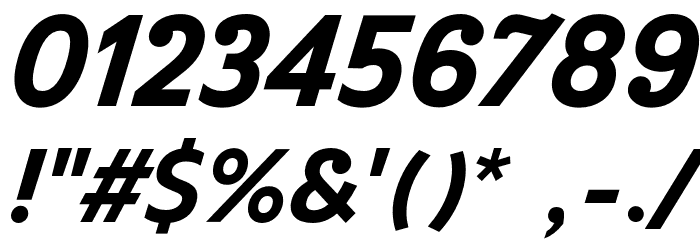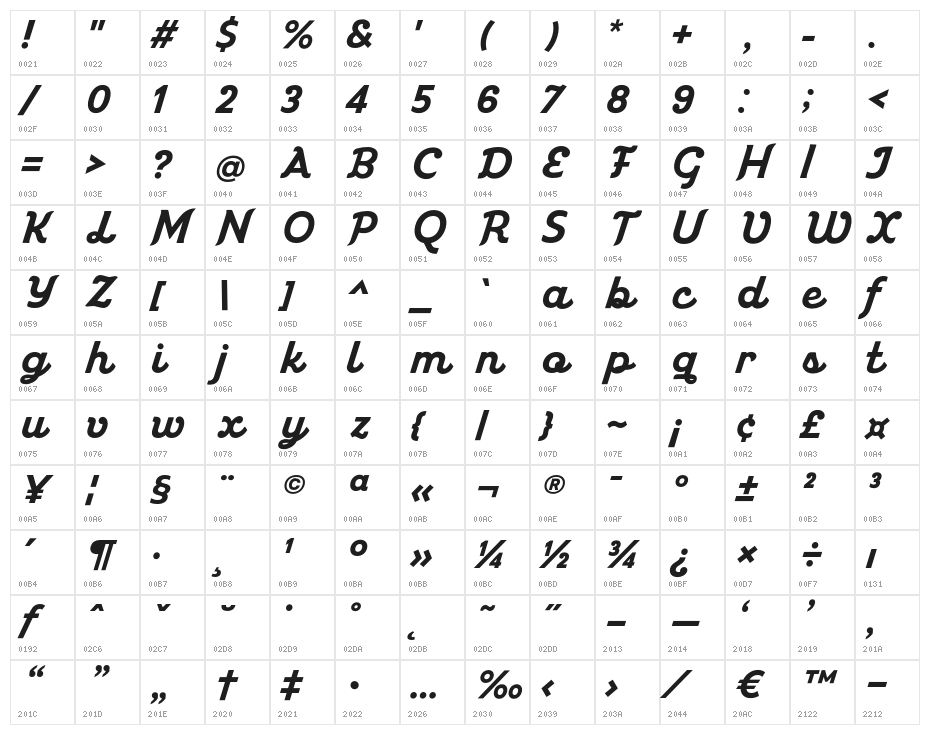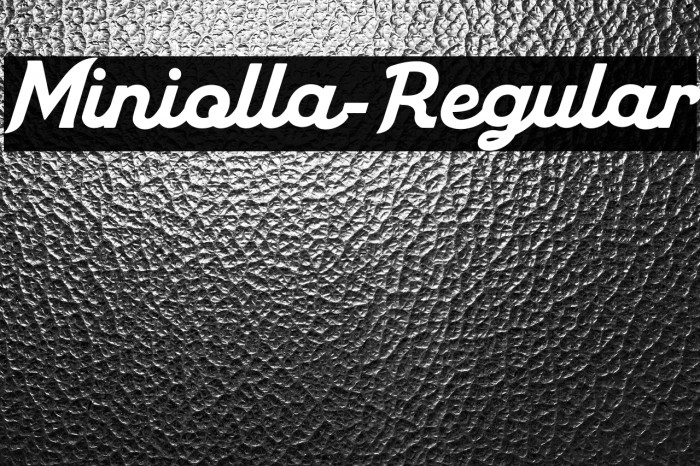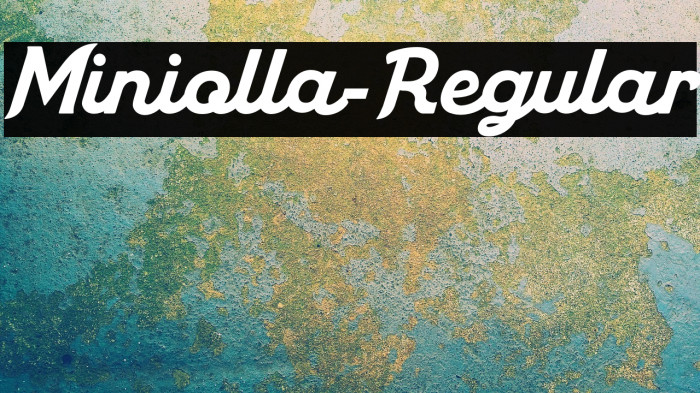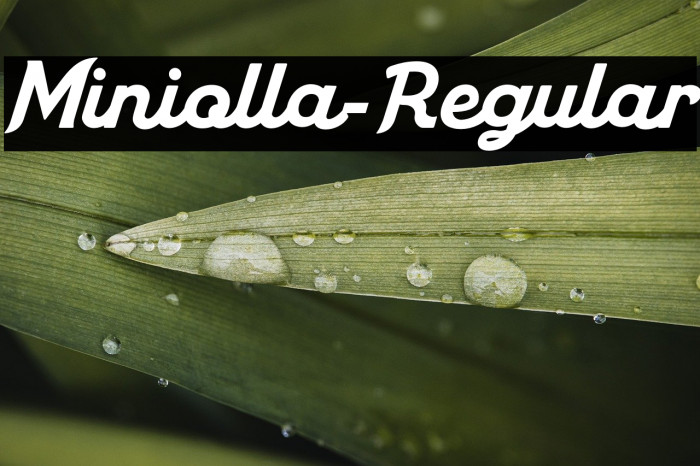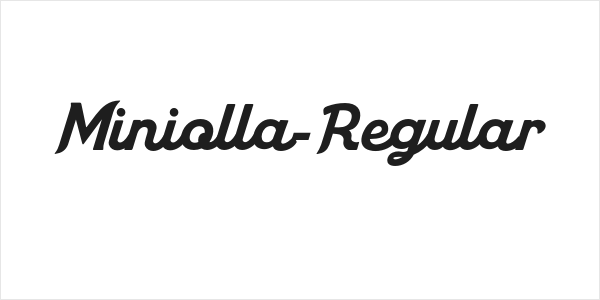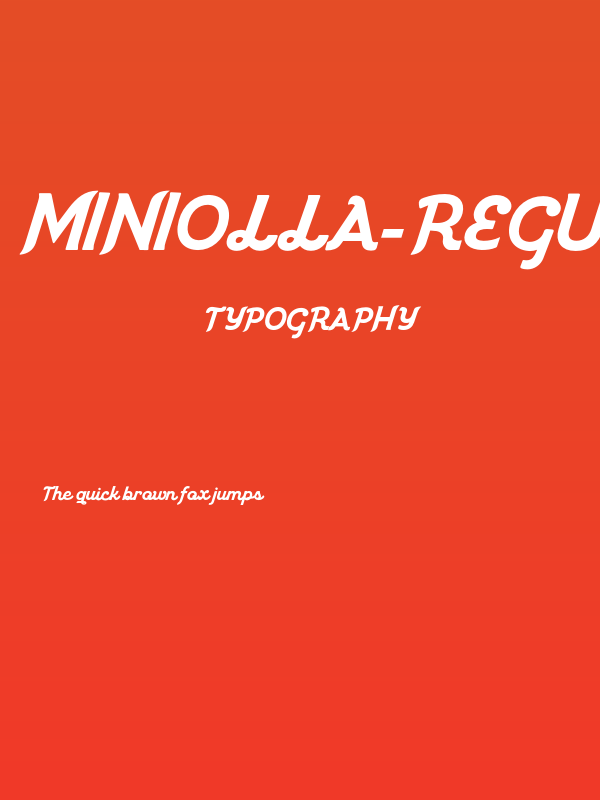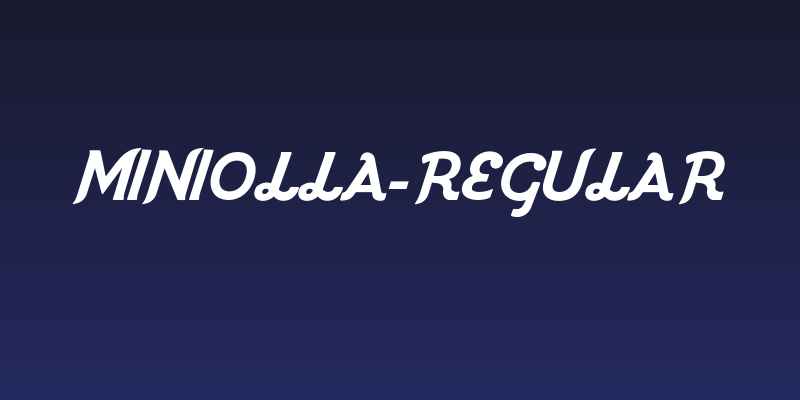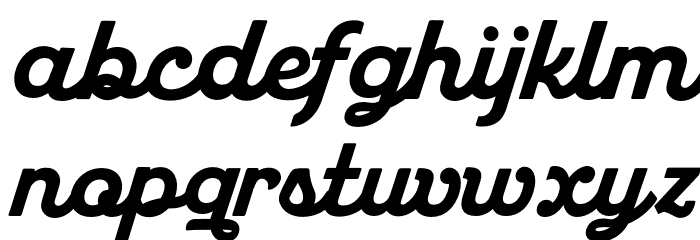
Miniolla-Regular Font
Miniolla-Regular Description
This font features a bold and dynamic script style with a strong presence. The letters are connected in a flowing manner, creating a sense of movement and elegance. The uppercase letters are slightly slanted, adding to the dynamic feel, while the lowercase letters maintain a consistent flow. The numerals are bold and clear, matching the overall style of the alphabet. Special characters are well-integrated, maintaining the script's cohesive look. The font's design is suitable for projects that require a touch of sophistication and flair.
| Proposed Projects | Ideal for branding, invitations, packaging, and headlines that require a sophisticated and stylish touch. |